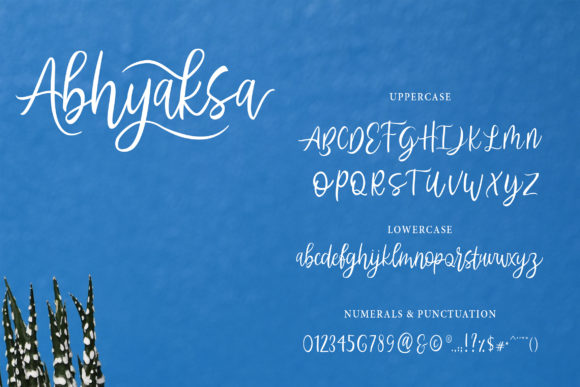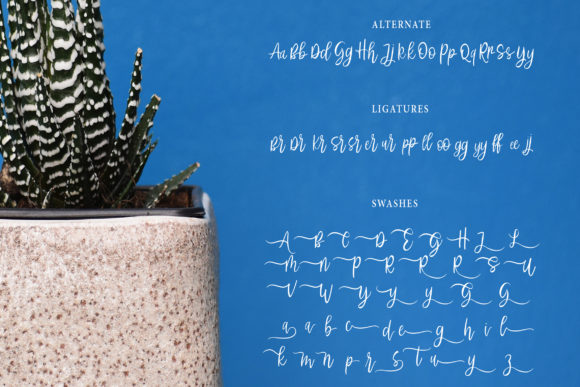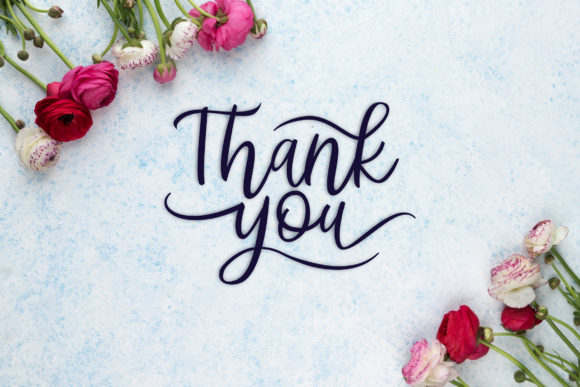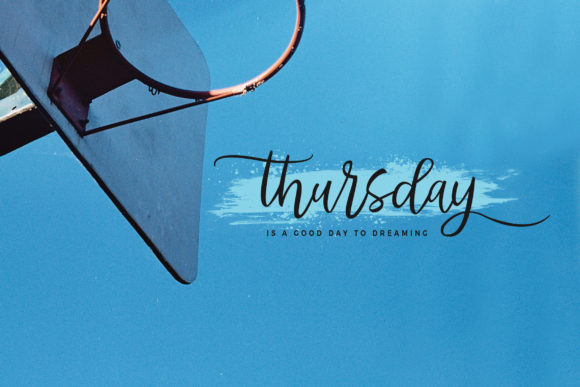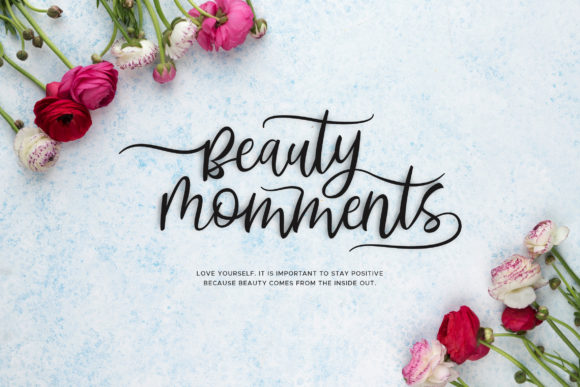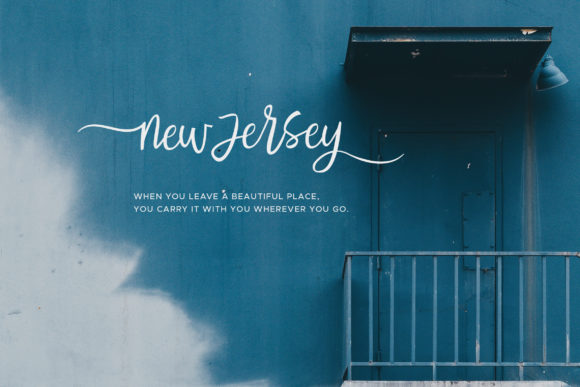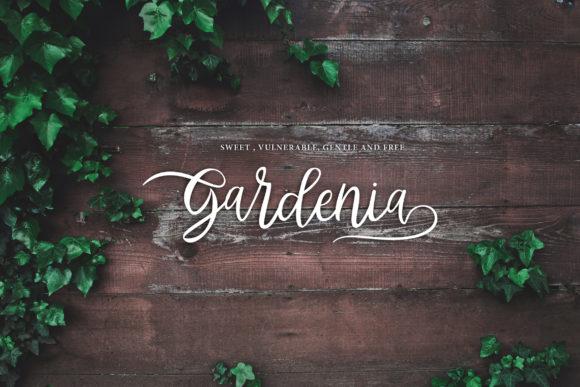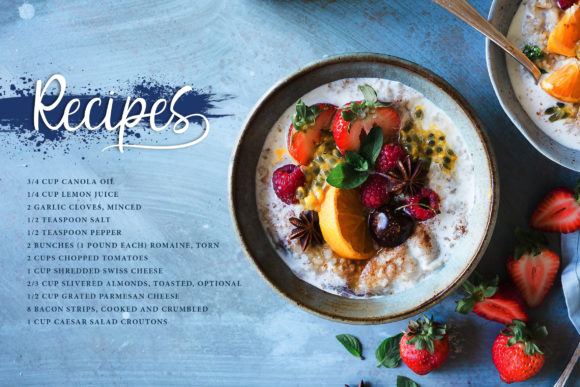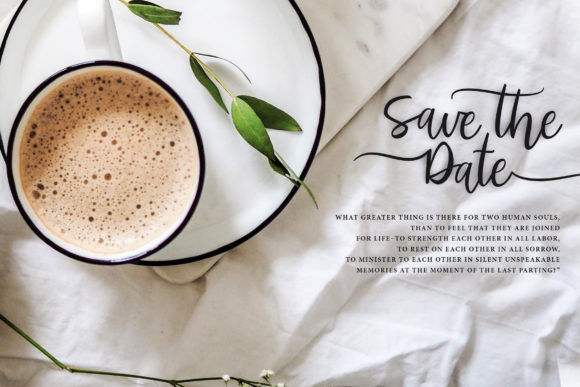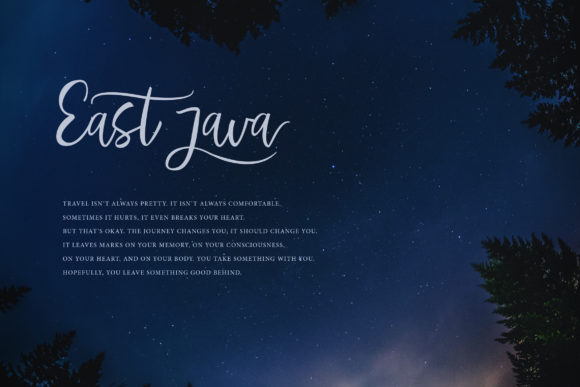
Abhyaksa Font
About Abhyaksa Font
The Abhyaksa is an elegant font which was inspired by classic posters. It includes amazing swashes which can be used to add a luxurious touch to your designs.
It’s perfect for logos, letterheads, posters, apparel designs, labels, and much more!